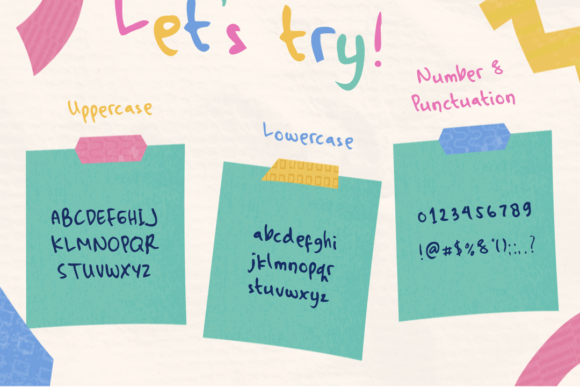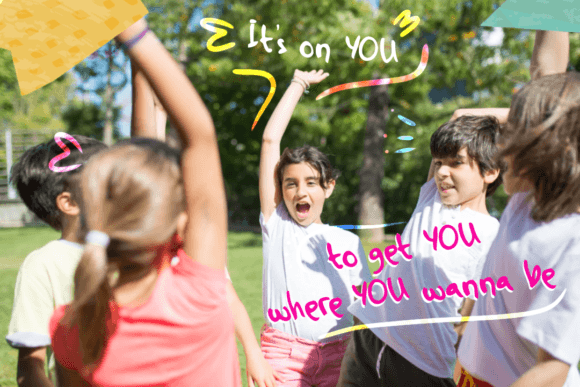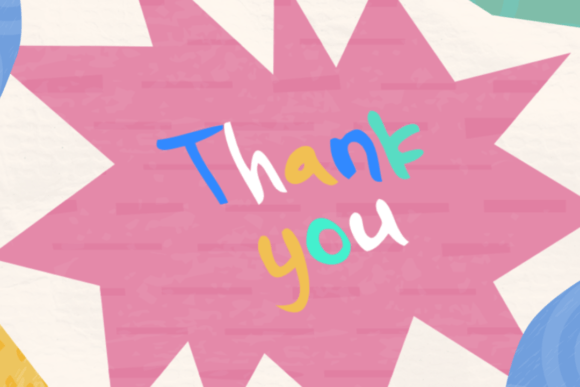
Introduction to Niatica Font
Introducing Niatica, characterized by its playful, handwritten style.
It features variable stroke thickness, irregular baselines, and rounded edges, giving it a casual and friendly appearance The font is ideal for projects needing a personal, informal touch.
Key Features of Niatica Font